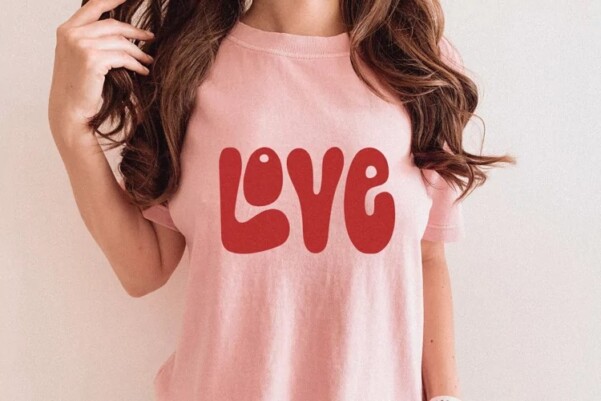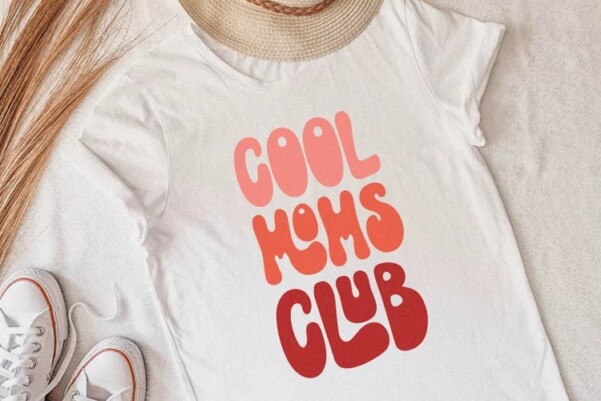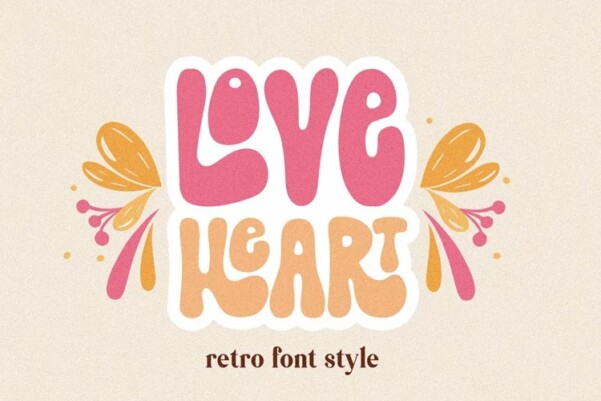
Love Heart Groovy Font
Love Heart Font a cute retro handwritten font. Perfect to create stickers, quotes, t-shirt designs, mug designs, baby svg onesie projects, cricut projects, sublimation designs and svg files.